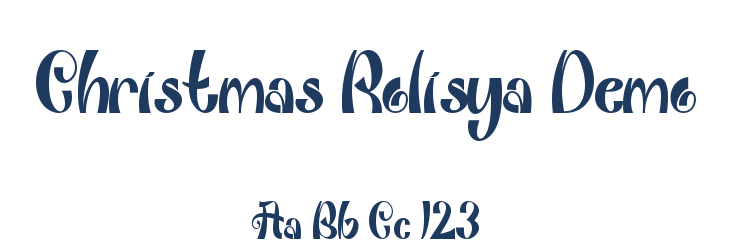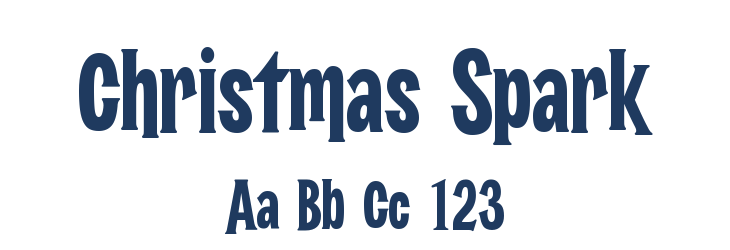
Christmas (Xmas) Fonts (697)
Christmas Reign PERSONAL Font
An ornate and decorative Blackletter-style font with intricate details.
Christmas Reloaded PERSONAL USE DEMO Font
A festive, decorative font with star-like embellishments and a playful, hand-drawn style.
Christmas Respite Font
A playful, hand-drawn font with tall, narrow letters and a whimsical style.
CHRISTMAS REVUE PERSONAL USE Font
A bold, flowing script font with elegant, cursive letterforms and strong visual impact.
Christmas Ribby - Personal Use Font
An elegant, decorative script font with festive flourishes.
Christmas Rockstar - Personal u Font
A bold, brushstroke-style font with an energetic and artistic flair.
Christmas Rolisya Demo Font
Bold, decorative font with festive swirls and playful curves.
Christmas Rose Font
A decorative, high-contrast handwritten script with ornate flourishes.
Christmas Sabila Demo Font
Ornate, calligraphic script with blackletter influences and high contrast.
Christmas Santa Font
A whimsical, hand-drawn sans-serif with tall, playful letters.
Christmas Santa Cart Font
A festive, candy cane-inspired font with bold, striped characters.
Christmas Santaclaus Font
Tall, narrow, handwritten sans-serif with playful character.
Christmas Scriptty Demo Font
A festive, cursive script font with elegant, flowing strokes.
Christmas Season Font
A whimsical, hand-drawn font with tall, slender characters and a playful style.
Christmas Season Doodle_DEMO Font
Hand-drawn doodle font with Christmas and holiday illustrations.
Christmas Serenity Font
Elegant, handwritten script with smooth, connected strokes.
Christmas Shadow Font
Whimsical, decorative script with bold swashes and heart accents.
Christmas Shadyna Demo Font
Whimsical, decorative script with festive swashes and heart accents.
Christmas Shadyna Monogram Demo Font